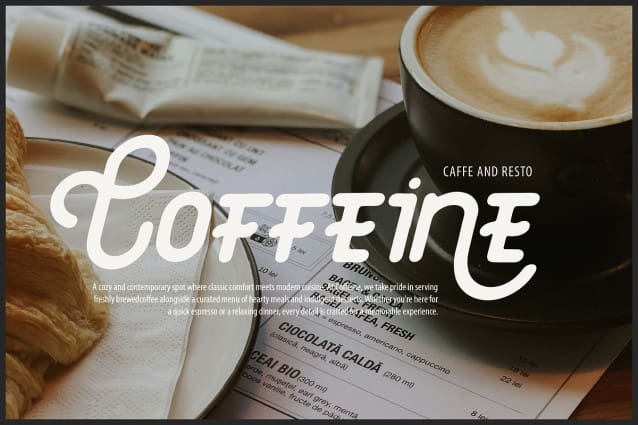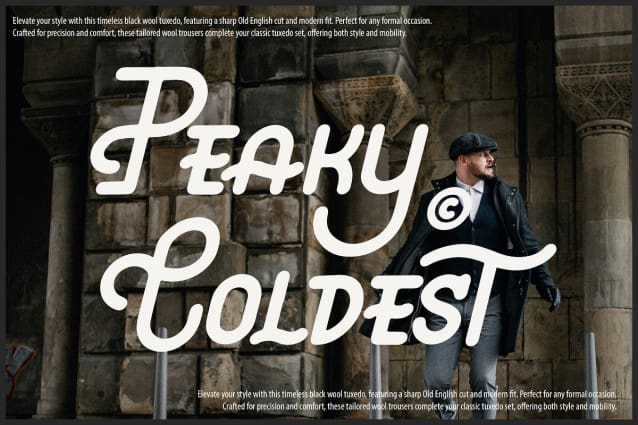
Kanita Aquieloz Font
Kanita Aquieloz Font | Monoline Script, from Denustudios, suitable for any projects such as: logos, branding projects, homeware designs, product packaging, mugs, quotes, posters, shopping bags, t-shirts, book covers, name card, invitation cards, greeting cards, label, photography, watermark, special events, and all your other lovely projects that need a Monoline Script script taste.